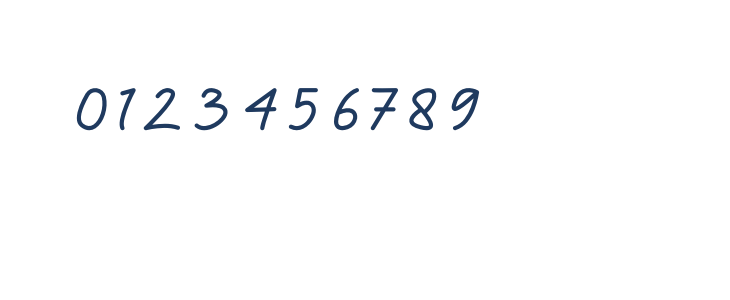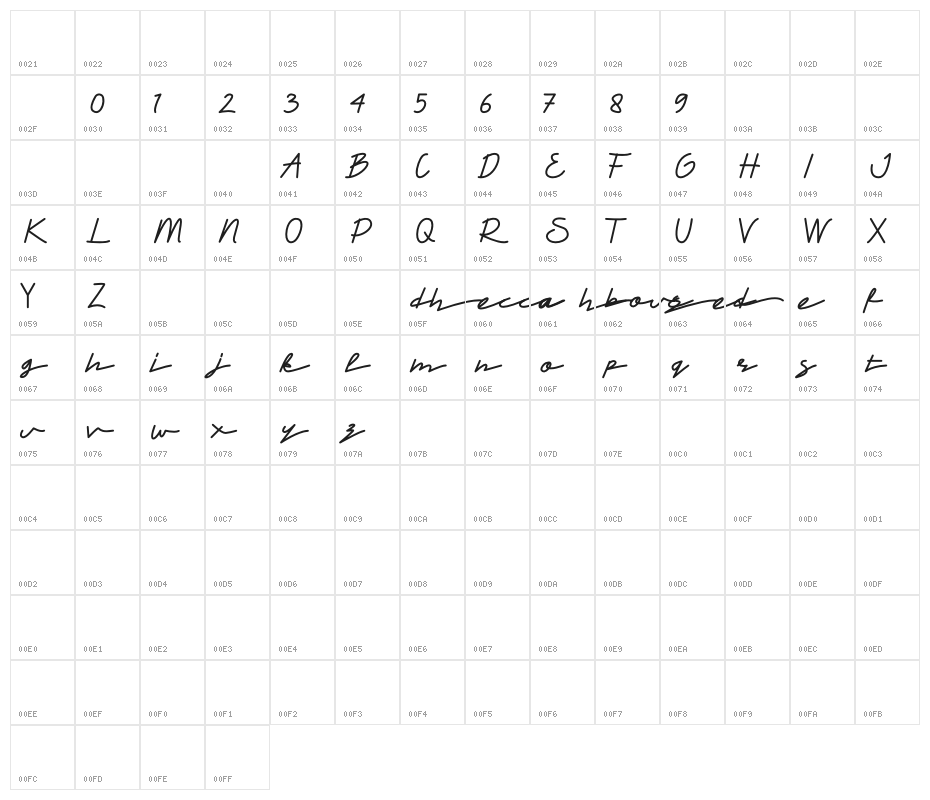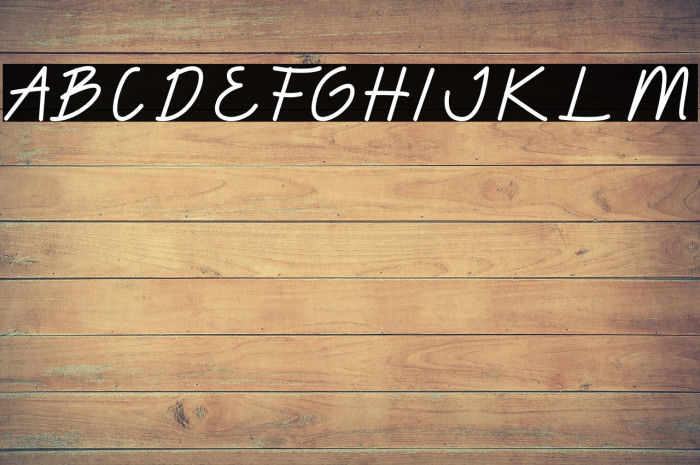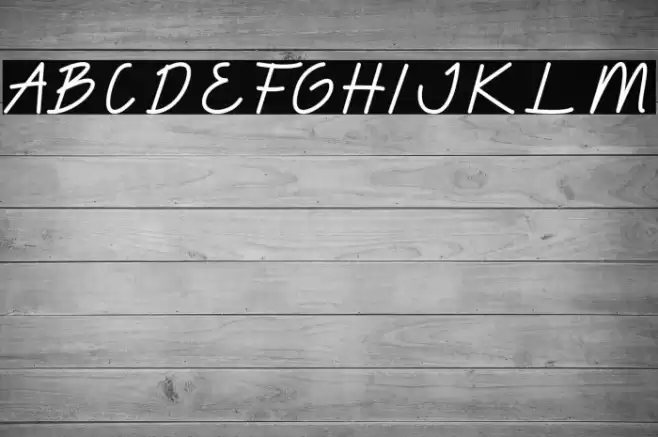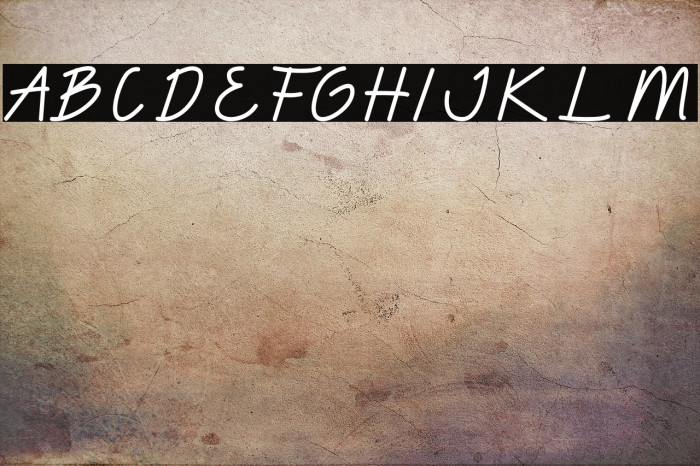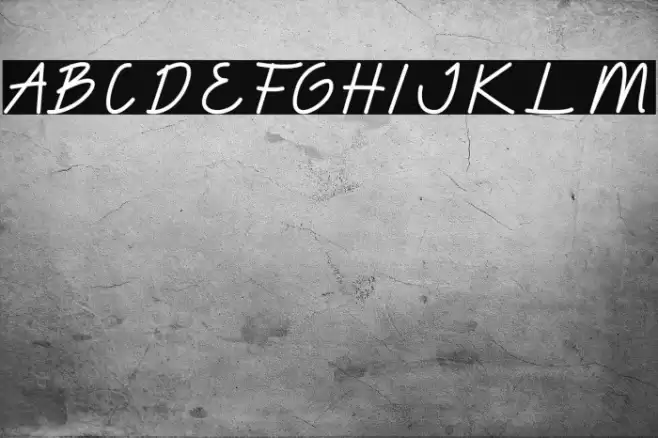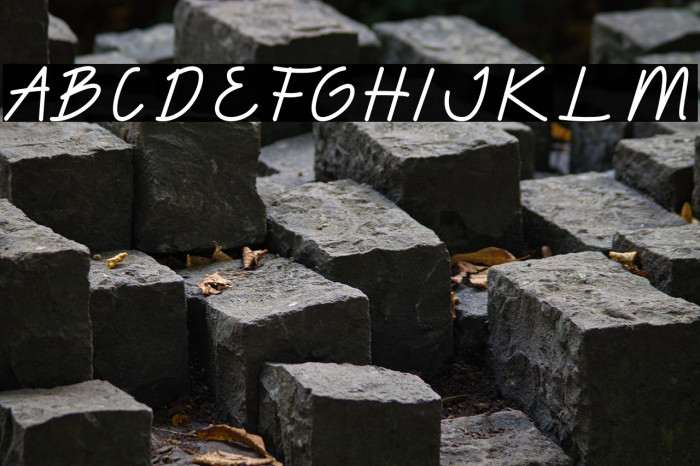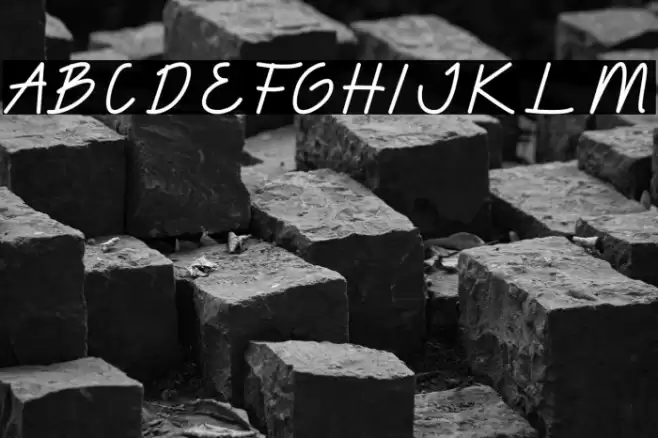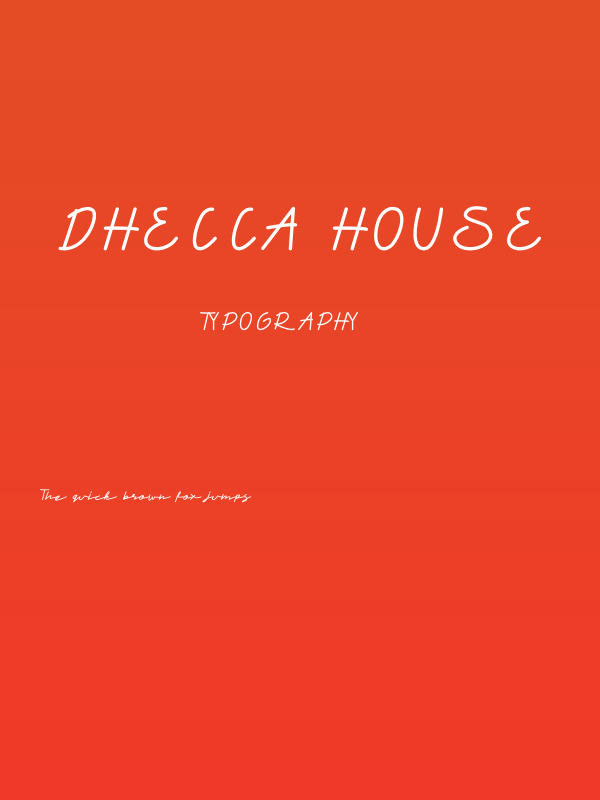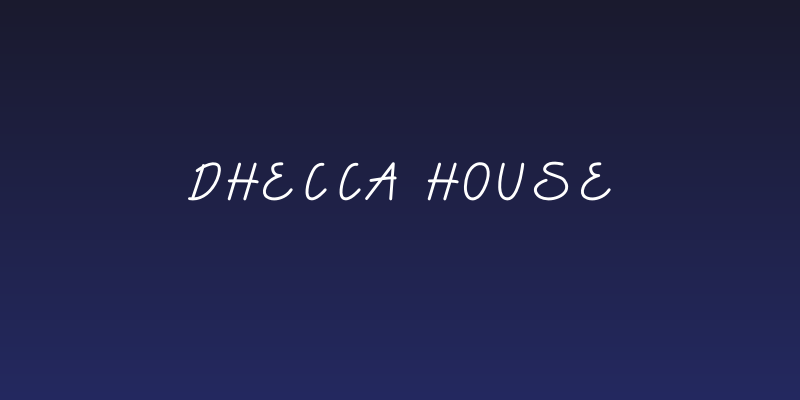
Dhecca House Font
Dhecca House Description
This font features a fluid, handwritten style with a casual and approachable appearance. The uppercase letters are slightly slanted with a consistent stroke width, giving them a uniform look while maintaining a sense of individuality. The lowercase letters are connected, enhancing the script-like quality and providing a smooth flow across words. Numbers are clear and legible, maintaining the same handwritten aesthetic. The special characters are designed to blend seamlessly with the rest of the font, ensuring a cohesive look. This font is perfect for projects that require a personal touch, such as invitations, greeting cards, or branding materials that aim to convey warmth and friendliness.
Overall StyleCasual
Use CaseHeadlines, Logos, Invitations
Proposed ProjectsIdeal for invitations, greeting cards, personal branding, and any project needing a warm, personal touch.